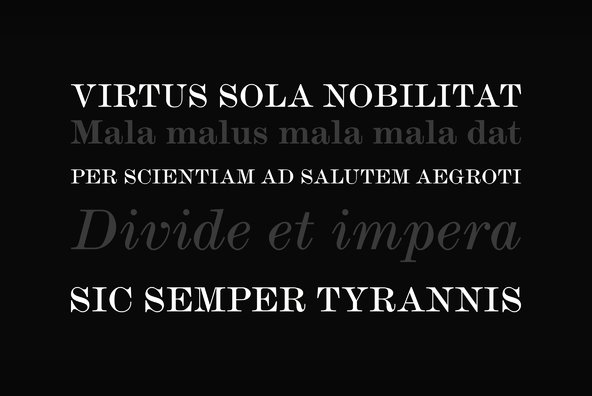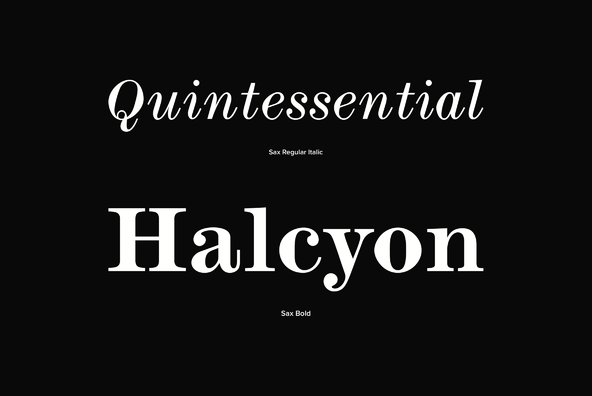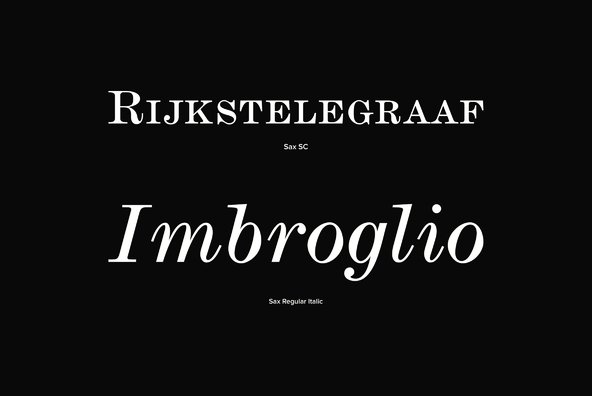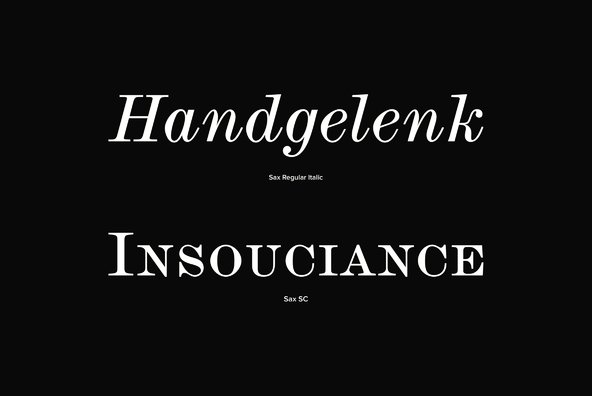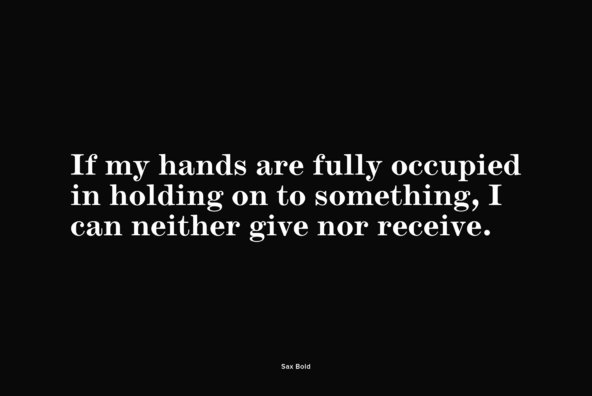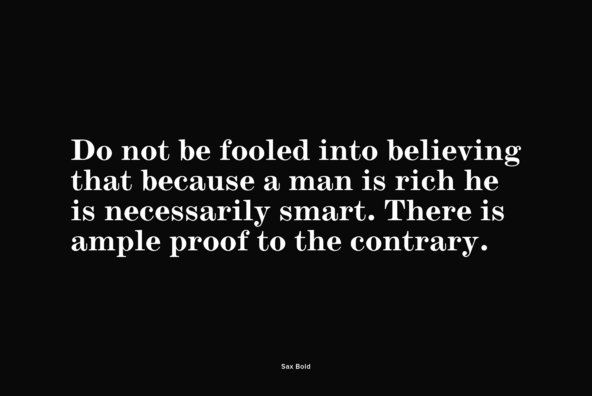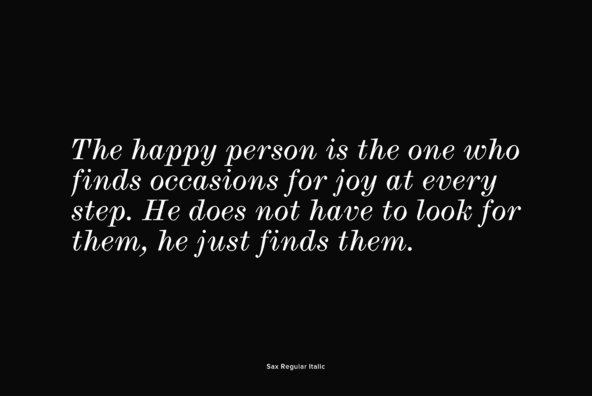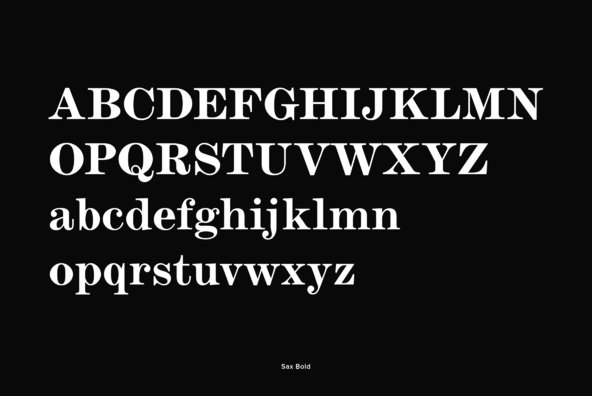
Sax is a professional, elegant and high end serif design by Coen Hofmann, published in 2008 by URW. The Sax family contains three effective weights of regular, bold and italic, along with a small caps weight.